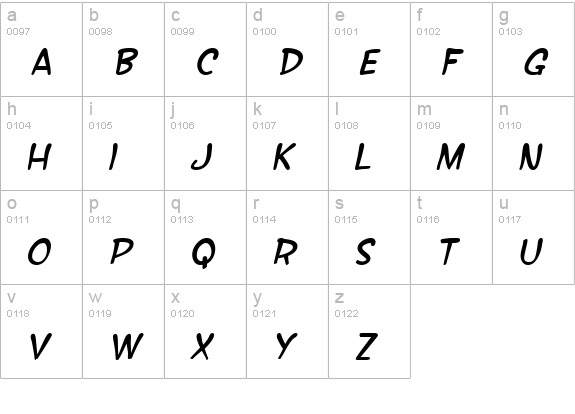
SF Wonder Comic Italic Font Details
SF Wonder Comic Italic is a distinctive, italic variant in the SF typeface family \xE2\x80\x94 well suited to design and typography projects.
Introducing SF Wonder Comic Italic font, a captivating and dynamic typeface that brings a sense of adventure and excitement to your designs. With its unique and playful appearance, this font is perfect for comic books, graphic novels, website headers, and any project that requires a touch of whimsy. SF Wonder Comic Italic font combines the classic comic book aesthetic with a modern twist, making it the ideal choice for both nostalgic throwbacks and contemporary designs. Its italicized form adds a sense of movement and energy, giving your text a dynamic and expressive look. But what truly sets SF Wonder Comic Italic font apart is that it is free! That's right, this incredible font is freely available to download at FontsMarket.com. You can now enhance your designs without breaking the bank, making it accessible to both professionals and enthusiasts alike. Whether you're creating a superhero-themed poster, designing a webcomic, or simply want to add a playful touch to your project, SF Wonder Comic Italic font is the perfect choice. Its versatility and affordability make it a must-have in any designer's toolbox. So why wait? Head over to FontsMarket.com and download SF Wonder Comic Italic font today. Unleash your creativity and bring your designs to life with this captivating and freely available font.